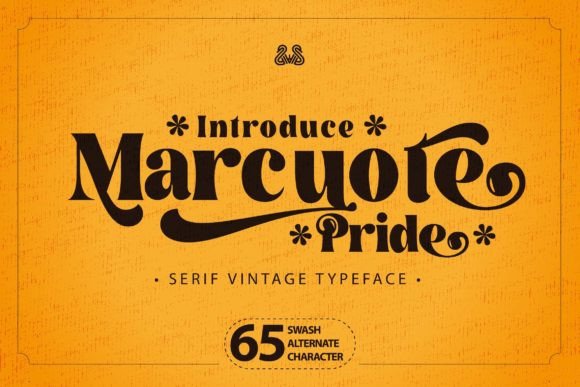
**Embrace the Legacy of Bold Sophistication: Marcuote Pride - Where Timeless Beauty Meets Modern Charm**
In a world saturated with digital noise, where brands clamor for attention, the art of typography stands as a beacon of distinction. It is in this realm that Marcuote Pride, a serif font of unparalleled elegance, emerges as the ultimate choice for discerning designers seeking to make a lasting impact.
Crafted with meticulous care by twousstudio, Marcuote Pride embodies a timeless aesthetic that gracefully bridges the gap between tradition and modernity. Its bold strokes, reminiscent of classic serif designs, evoke a sense of heritage and sophistication, while its contemporary touches lend a distinctly modern appeal.
**Unleash Your Creativity with Endless Applications:**
With Marcuote Pride as your creative companion, the possibilities are boundless. Whether you're designing logos that exude authority, crafting magazine layouts that captivate readers, or creating social media posts that demand attention, this versatile font rises to every occasion.
See your words transform into captivating headlines that demand attention, paragraphs that flow with effortless grace, and invitations that radiate elegance. Marcuote Pride's innate versatility extends beyond the digital realm, seamlessly gracing the pages of books, adding a touch of sophistication to printed materials, and elevating packaging designs with its timeless charm.
**Experience the Allure of Visual Harmony:**
Marcuote Pride possesses an inherent ability to harmonize with various design elements, effortlessly complementing images, graphics, and other fonts. Its well-balanced letterforms ensure seamless integration into any project, creating a cohesive visual experience that captivates the senses.
Designers of all levels will find solace in Marcuote Pride's user-friendly nature. Its intuitive design and extensive character set empower both seasoned professionals and budding enthusiasts to weave their creative magic effortlessly.
**Elevate Your Designs to Unprecedented Heights:**
Marcuote Pride is more than just a collection of letters; it's an investment in your creative arsenal. Its enduring appeal ensures that your designs will stand the test of time, remaining relevant and impactful in a rapidly evolving digital landscape.
With Marcuote Pride as your trusted font companion, you'll discover a newfound confidence in your design abilities. Its innate ability to elevate ordinary words into extraordinary expressions will empower you to create designs that resonate with your audience, leaving a lasting impression.
**Embrace the Essence of Timeless Typography:**
Marcuote Pride is a love letter to the art of typography, a testament to the enduring power of timeless design. Its classic serif strokes evoke a sense of nostalgia, while its modern touches infuse it with a contemporary charm.
Step into the realm of typographic excellence with Marcuote Pride, and experience the transformative power of beautiful typography. Let your creativity soar as you craft designs that inspire, captivate, and leave an indelible mark on the world.